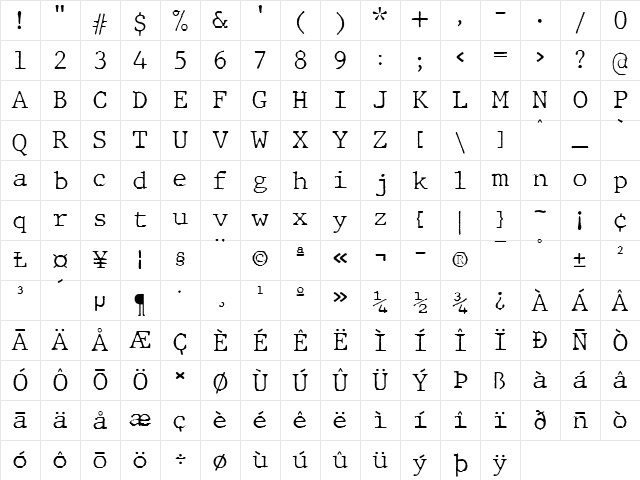
Complete JMH Typewriter Thin glyph index. Displaying only characters natively supported by JMH Typewriter Thin font.
JMH Typewriter uses fixed-width spacing throughout, giving it the structured, systematic character associated with coding environments and technical documentation. Its slender proportions lend an understated elegance to any composition.
Pro Tip: Use JMH Typewriter with slightly increased line-height for extended reading - fixed-width spacing can feel dense in longer passages without extra breathing room.